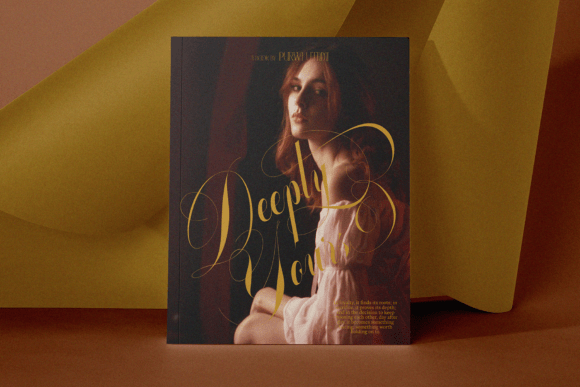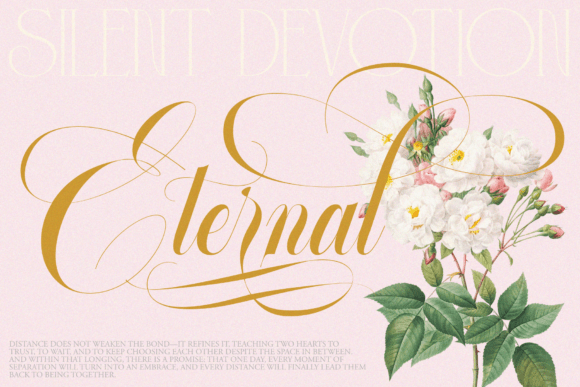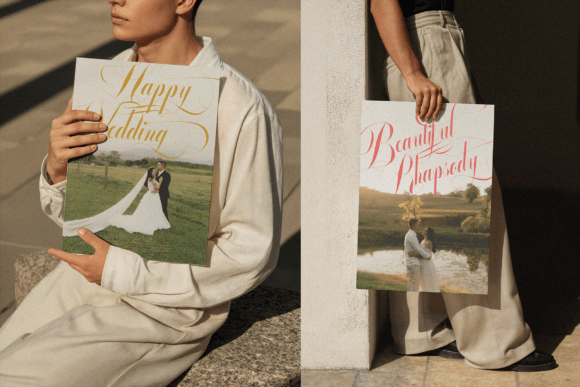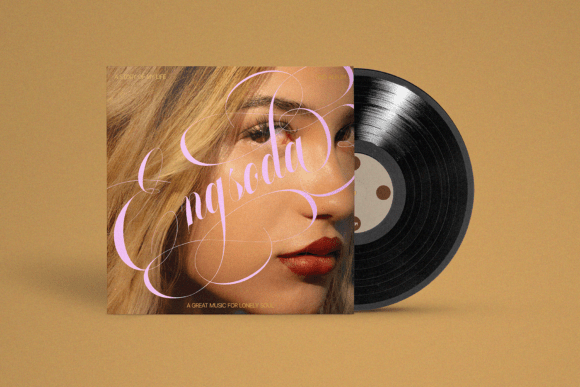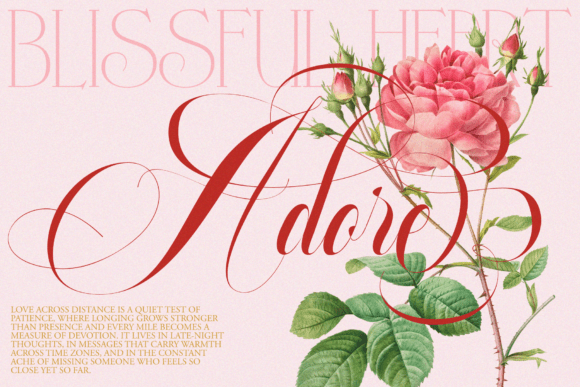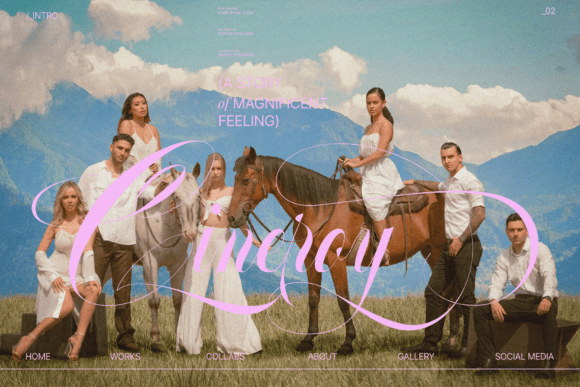
Introduction to Glowing Romance Font
Have you ever stared at a beautifully crafted font and felt an instant connection? For designers, it’s that ‘aha’ moment when everything falls into place – a project’s tone, style, and essence are all captured in a single, elegant letterform. For me, that moment came when I discovered the Glowing Romance Font, a luxurious script that embodies the sophistication and finesse of modern elegance.
As a design resource, the Glowing Romance Font is a game-changer for creative projects, offering a lavish aesthetic that seamlessly marries romance and sophistication. Its bold intensity and understated delicacy make it an ideal choice for logos, branding, and fashion identities that demand high-end visual narration. And the best part? This beautiful font is available for free download, complete with a transparent background for effortless integration into any design.
Key Features of Glowing Romance Font
- Unique, hand-drawn design with a romantic and whimsical feel, perfect for creative projects.
- High-quality font with a transparent background, ideal for designers who want to add a touch of elegance to their designs.
- Perfect for wedding invitations, love quotes, and other romantic-themed designs, making it a valuable addition to any design resource.
Honest Review: Glowing Romance Font
I recently stumbled upon the Glowing Romance Font, and I’m excited to share my thoughts with you. As a designer, I’m always on the lookout for high-quality design resources that can elevate my creative projects. In this review, I’ll break down what works well and what could be improved.
- The font is a beautiful, elegant script that’s perfect for romantic or whimsical designs.
- The transparent background option is a nice touch, allowing for easy customization and layering.
- The font is limited to a single style, which may not be suitable for more complex designs.
- The font may not be suitable for all types of projects, such as technical or informative content.
Overall, I think the Glowing Romance Font is a great addition to any designer’s toolkit. While it has its limitations, the quality and versatility of the font make it a valuable resource for any creative project. If you’re looking for a beautiful, elegant script for your next design, I’d definitely recommend giving this font a try.
The Glowing Romance Font is perfect for designing romantic invitations, wedding stationery, and other love-themed designs. It’s also great for creating inspirational quotes, social media graphics, and other visual content that requires a touch of romance and elegance.